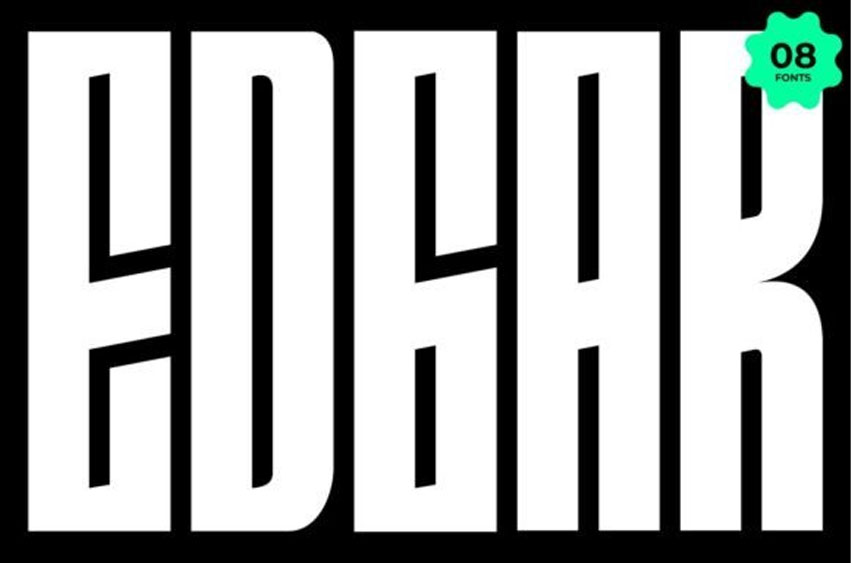
Edgar Font
Edgar Font family is a bold and ultra-condensed display typeface crafted to deliver high visual impact in modern design. With its towering vertical form, sharp internal angles, and brutalist character, EDGAR is made to stand out across posters, branding, album covers, packaging, and digital compositions.
This family includes four distinctive styles—Cosmic, Sigma, Micah, and Normal—each with its structural rhythm and tone. All styles come with matching Italic, giving you a total of 08 fonts to unlock striking typographic combinations.